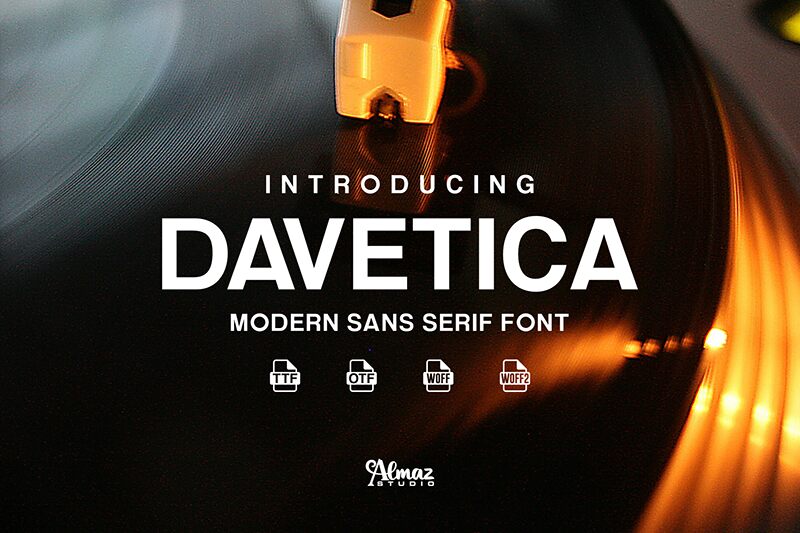
Davetica
Davetica font is a sans-serif typeface by Almaz Studio combining geometric shapes, clean lines, and a modern look. It is characterized by its professional feel and versatile use which are enabled thanks to its clear characters that enhance the reading experience.
This free sans-serif font can be used in websites, mobile applications, magazines, ads, flyers, labels, branding designs, and book covers. You can also use it in movie posters, logos for shops or events. natural sciences where eloquent and easily comprehensible headlines are essential.